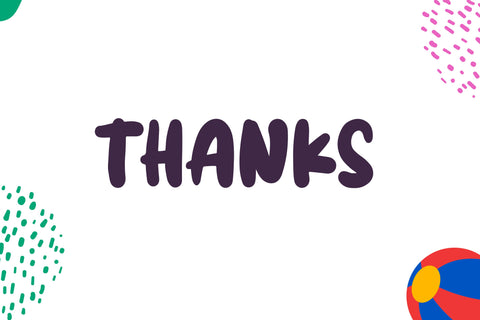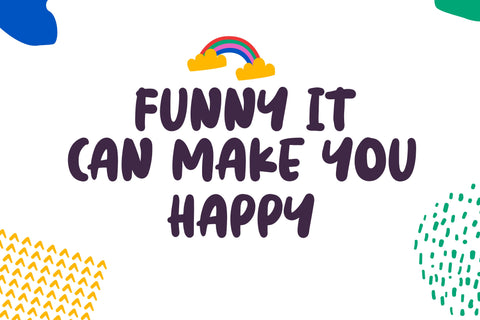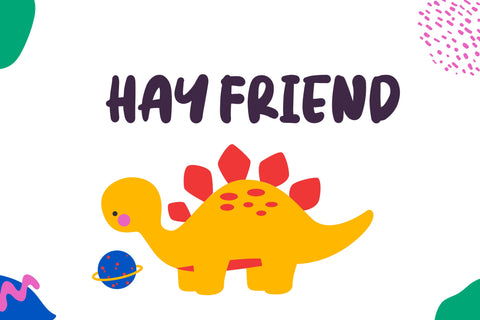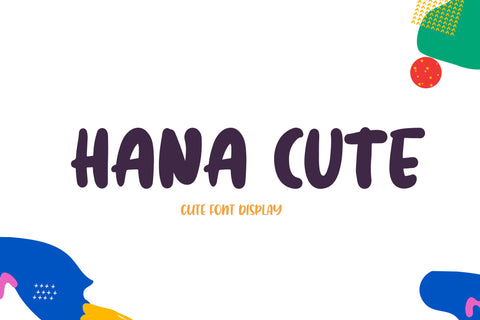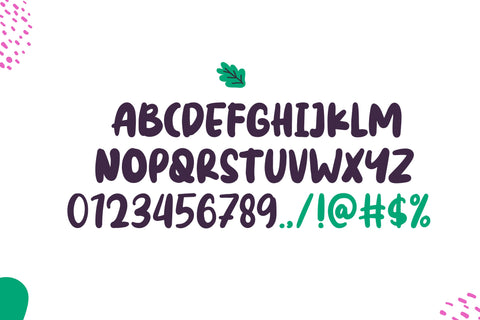
Hana Cute Font
Hana Cute is playful font, simple, fresh and friendly display brush font. This font is perfect for children themed designs, especially when combined with bright colors. It is perfect for creating fun designs that will draw all the attention. It is great for Instagram or Facebook posts, blog post headlines, product packaging, home decor, shirt design, and crafts.